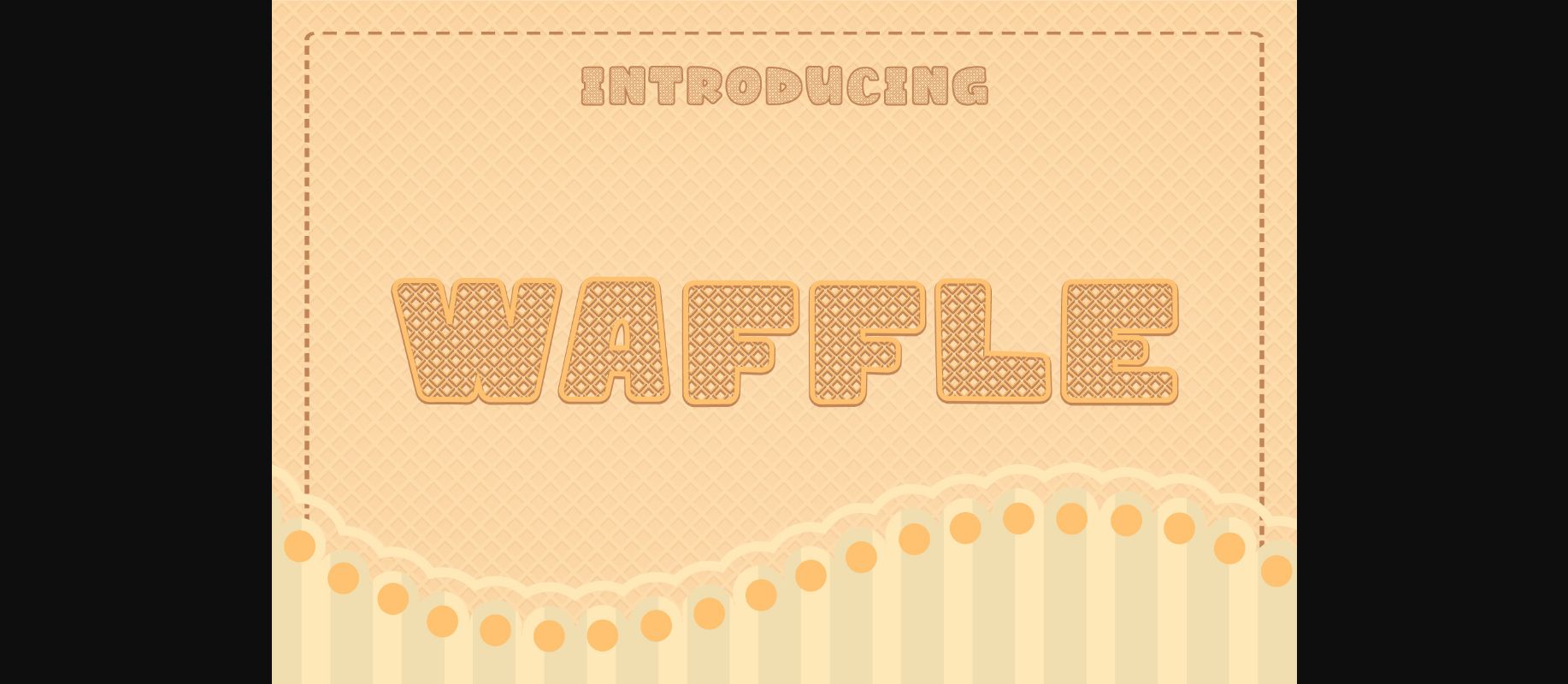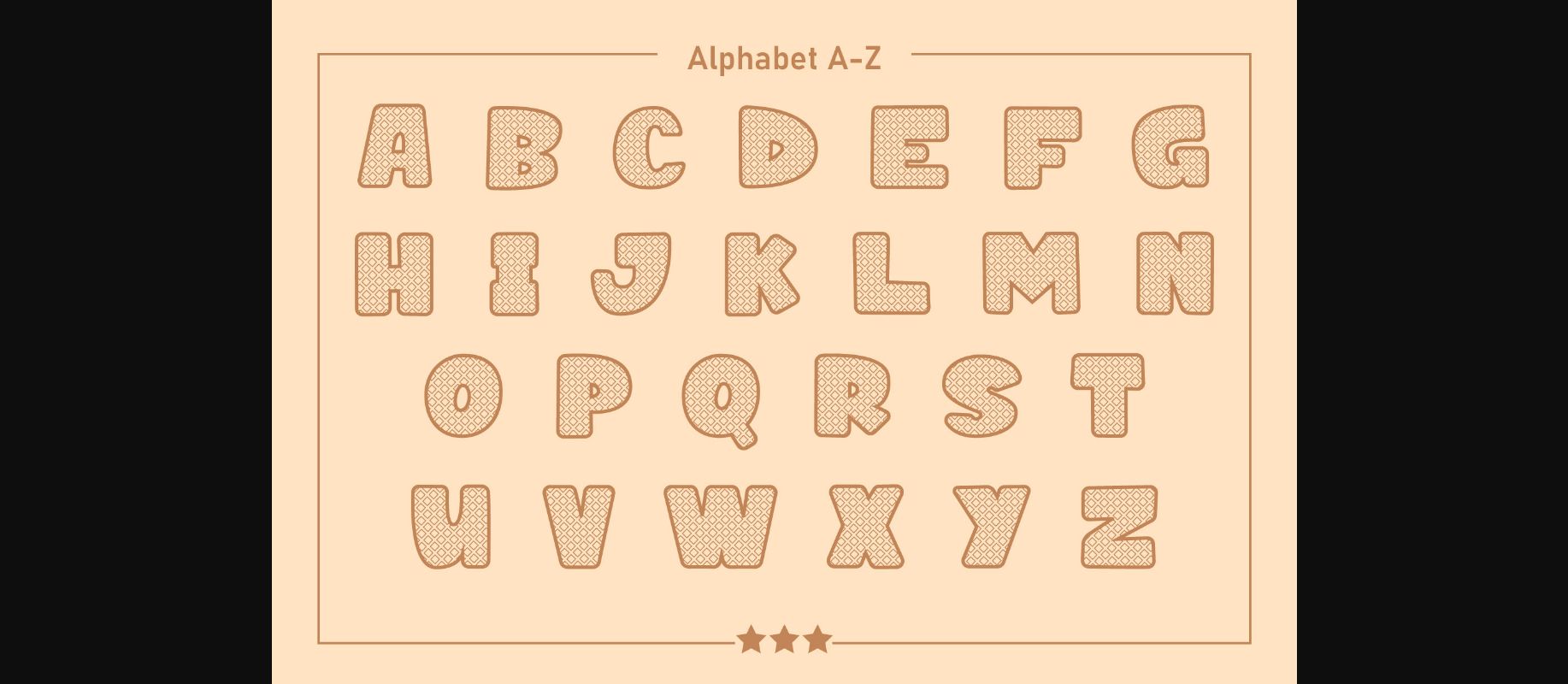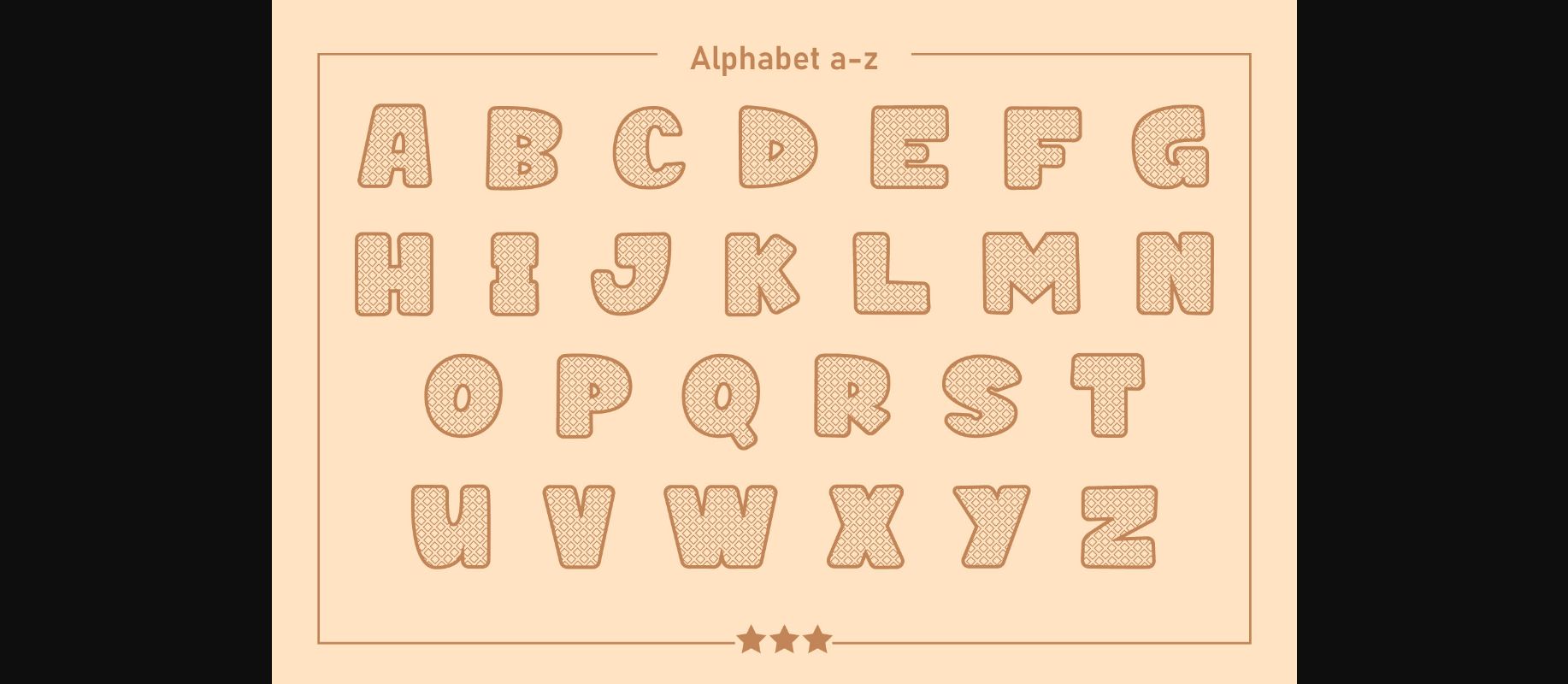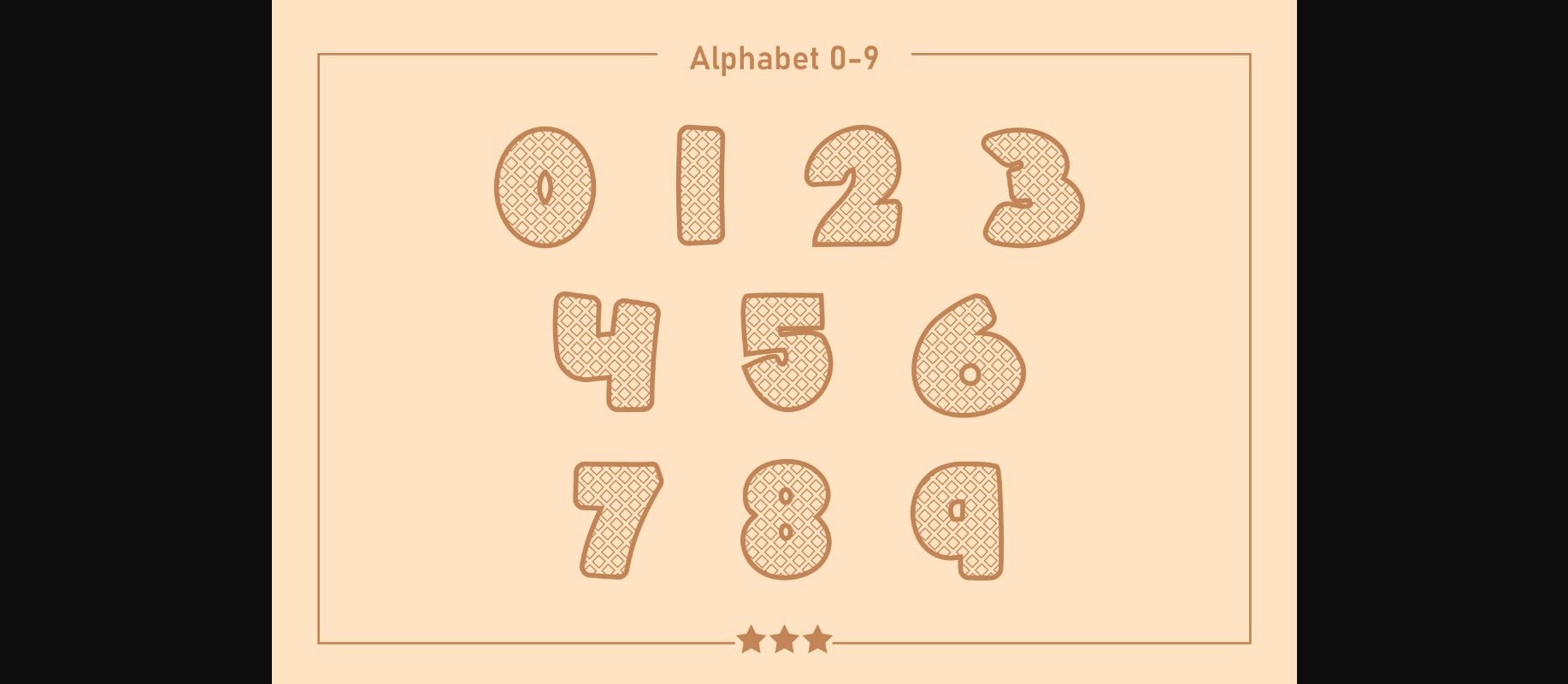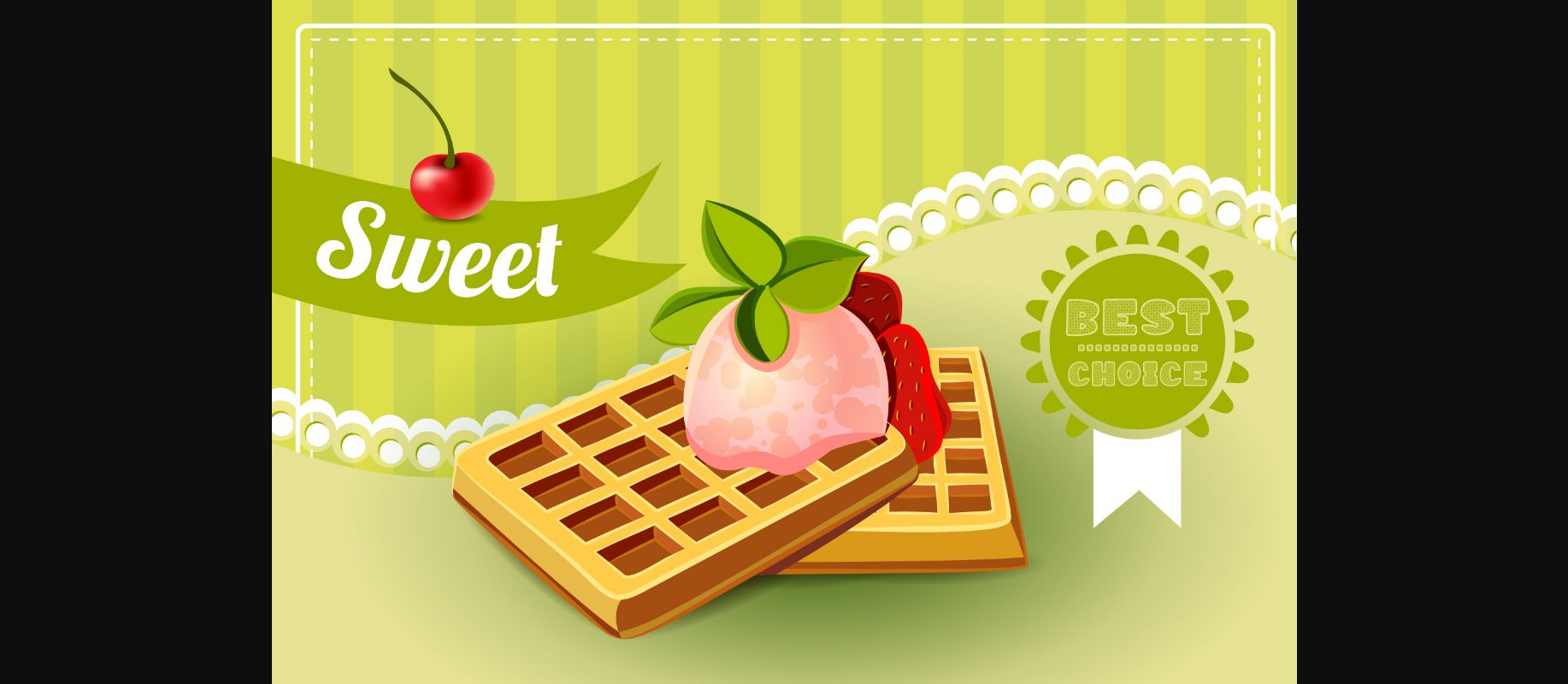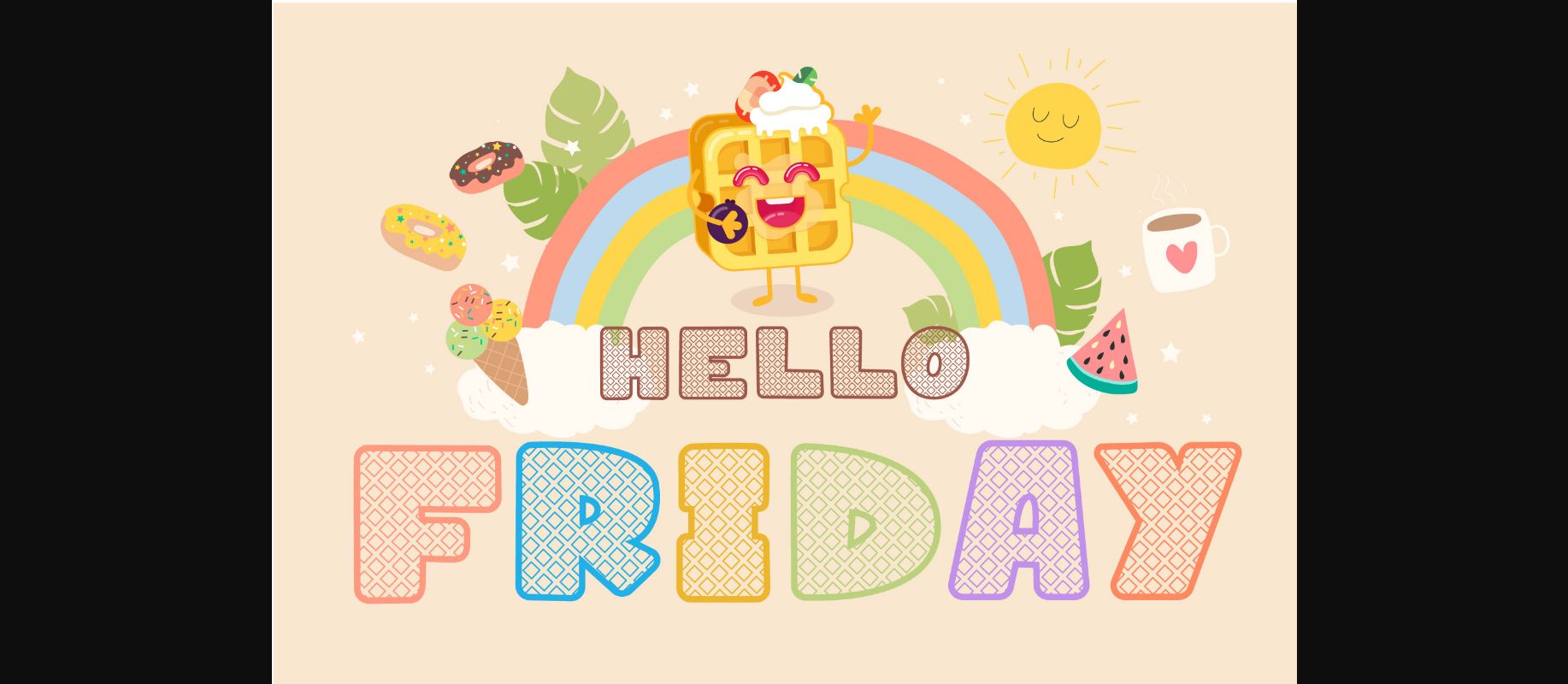
HomeDecorative FontsWaffle Font Decorative Fonts Waffle Font FacebookXPinterestWhatsApp 1 of 8 ... Waffle Font Poster 2... Waffle Font Poster 3... Waffle Font Poster 4... Waffle Font Poster 5... Waffle Font Poster 6... Waffle Font Poster 7... Waffle Font Poster 8... About Waffle Font Waffle is a brilliant, fun, and cute decorative font, ideal for designing dessert menus. It works best on a playful and bright theme. Add this font to your favorite creative ideas, and notice how it makes them come alive! DOWNLOAD NOW People also explored Clorofil Font The Mood Font Honilley Font Bastia Salita Font Monogram Spring Gnome Font Trully Signature Font Birmingham Font La Hileah Font Britney Pearce Font 301 0 TagsWaffleWaffle Font Previous articleDead Dare FontNext articleTurtle Font LEAVE A REPLY Cancel reply Comment: Please enter your comment! Name:* Please enter your name here Email:* You have entered an incorrect email address! Please enter your email address here Website: Save my name, email, and website in this browser for the next time I comment. Personal Use Free Romansya Personal Use Free Read more about this font Gila Personal Use Free Read more about this font Haris Wood Personal Use Free Read more about this font Euphorigenic Personal Use Free Read more about this font BLOG How to Cut Any Font on Cricut: Convert a Font to SVG (Free) Turn any font into a clean SVG so it cuts crisp on Cricut - a quick 3-step workflow using a free font-to-SVG tool. Using Fonts in Digital Marketing: Tips to Strengthen Your Brand Identity Top 7 Google Fonts Alternatives for Faster and Privacy-Friendly Web Design (2025) Modern Sans-Serif Fonts That Brands Love in 2025